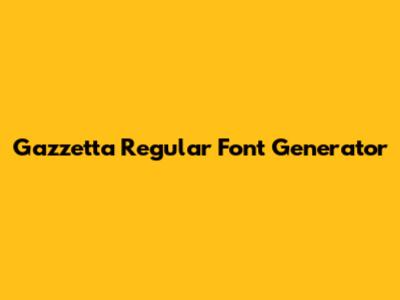
- Quick Mockups: Need to quickly see how a headline looks in Gazzetta Regular for a website design? A font generator lets you do that in seconds.
- Social Media Graphics: Creating eye-catching social media posts is a breeze. Just type in your text, generate the image, and you're good to go.
- Experimentation: Play around with different sizes, styles, and effects without any commitment. It’s perfect for exploring creative ideas.
- Accessibility: Sometimes, embedding fonts on websites can be tricky. Using a generated image ensures everyone sees the text as intended.
Hey guys! Ever stumbled upon a font that just clicks? For me, that's Gazzetta Regular. It’s got this timeless, classic vibe that works for practically anything – logos, websites, posters, you name it. But what if you want to play around with it a bit, add some flair, or generate text in a specific style using Gazzetta Regular without having the actual font installed everywhere? That's where a Gazzetta Regular font generator comes in super handy!
What is a Gazzetta Regular Font Generator?
Okay, so what exactly is a font generator? Think of it as a tool that lets you create text in the style of Gazzetta Regular without needing the font file itself. These generators use various techniques – sometimes they're based on images of the font, other times on clever coding – to mimic the look and feel of Gazzetta Regular. This is awesome because it means you can create cool-looking text graphics for social media, design mockups, or even just to see how your words look in that particular font, all without installing anything. Font generators can be a lifesaver when you're working on a project and want to quickly visualize text in a specific font without committing to downloading and installing it. They are especially useful when you're collaborating with others who might not have the same fonts installed on their systems. You can easily generate images or vector graphics of the text and share them without worrying about font compatibility issues. Moreover, if you're experimenting with different fonts for a design project, font generators allow you to quickly iterate and compare various options without cluttering your system with numerous font files. This streamlined workflow can significantly speed up the design process. Furthermore, font generators often offer additional customization options such as adjusting the font size, color, adding shadows, or applying various text effects. This enables you to create unique and visually appealing text designs that stand out. By leveraging the capabilities of font generators, you can enhance your creative projects and achieve professional-looking results with ease. Whether you're a designer, marketer, or simply someone who enjoys playing with fonts, these tools can be valuable assets in your creative toolkit. Using a font generator is also a great way to ensure consistency in your branding. By generating text in the Gazzetta Regular font using the same tool, you can maintain a uniform look and feel across all your marketing materials. This consistency can help to reinforce your brand identity and make your materials more recognizable to your target audience. In addition to branding, font generators can also be helpful for creating accessible content. By generating text as images or vector graphics, you can ensure that the text is displayed correctly on all devices and browsers, even if the user doesn't have the Gazzetta Regular font installed. This can help to improve the accessibility of your content and make it more inclusive for all users.
Why Use a Gazzetta Regular Font Generator?
There are tons of reasons why you might want to use a Gazzetta Regular font generator. Let’s break it down:
Beyond these core benefits, a Gazzetta Regular font generator can also be a fantastic tool for learning more about typography. By experimenting with different font sizes, line heights, and letter spacing, you can gain a deeper understanding of how these elements affect the overall look and feel of your text. This knowledge can be invaluable for anyone involved in design or content creation. Moreover, font generators can be incredibly useful for creating logos and branding materials. The ability to quickly generate text in the Gazzetta Regular font and apply various effects allows you to experiment with different logo concepts and find the perfect visual representation for your brand. Font generators are particularly helpful for creating watermarks. By generating text in the Gazzetta Regular font and adding it to your images, you can protect your intellectual property and prevent unauthorized use of your work. This can be especially important for photographers, artists, and other creatives who share their work online. In addition to these practical applications, font generators can also be a lot of fun. They provide a creative outlet for experimenting with different fonts and text effects, allowing you to create unique and visually appealing designs. Whether you're a professional designer or simply someone who enjoys playing with fonts, a Gazzetta Regular font generator can be a valuable tool in your creative arsenal. Furthermore, using a font generator can also help you to ensure that your designs are consistent across different platforms and devices. By generating text as images or vector graphics, you can avoid issues with font rendering and ensure that your text looks the same on all devices, regardless of whether the user has the Gazzetta Regular font installed. This can be particularly important for websites and mobile apps, where consistency is crucial for providing a positive user experience.